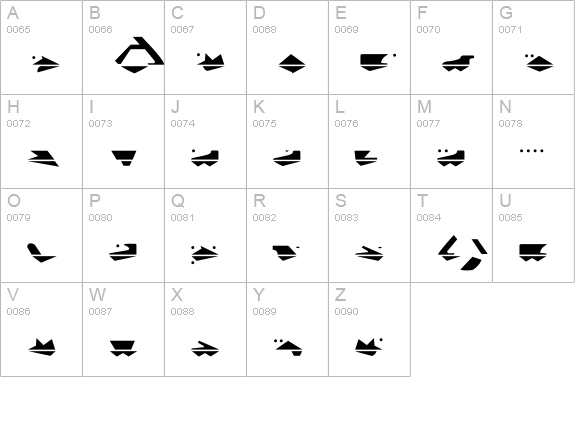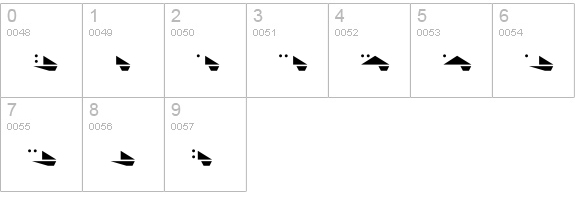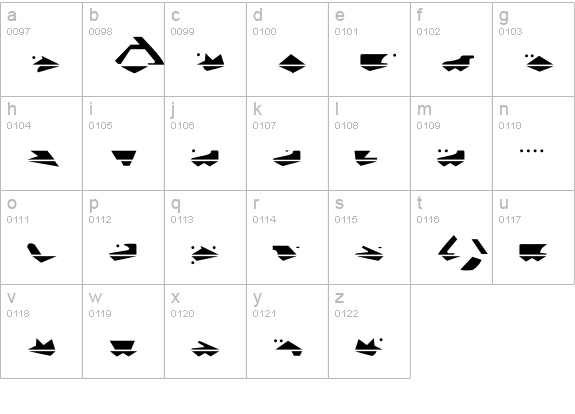
G.Machine Font Details
Introducing G.Machine, a striking and versatile font that effortlessly combines modern aesthetics with a touch of vintage charm. This captivating typeface is perfect for adding a unique and contemporary flair to a wide range of creative projects. With its clean lines, sharp angles, and bold letterforms, G.Machine commands attention and exudes confidence. Its sleek and streamlined design allows it to effortlessly adapt to various design contexts, making it suitable for everything from logos and branding to advertising materials, posters, and more. G.Machine is an ideal choice for those seeking a font that effortlessly blends elegance with a hint of industrial edge. Its timeless appeal and versatility make it a go-to option for both digital and print media. But what makes G.Machine truly special is that it is freely available to download at FontsMarket.com. Yes, you read that right - this amazing font can be yours without any cost. So, whether you're a professional designer or someone simply looking to add a touch of style to your personal projects, G.Machine offers you the opportunity to elevate your work without breaking the bank. Don't miss out on this exceptional font. Download G.Machine today from FontsMarket.com and experience the power of this captivating typeface firsthand. Unleash your creativity and make a bold statement with G.Machine - the font that combines elegance, versatility, and affordability all in one package.